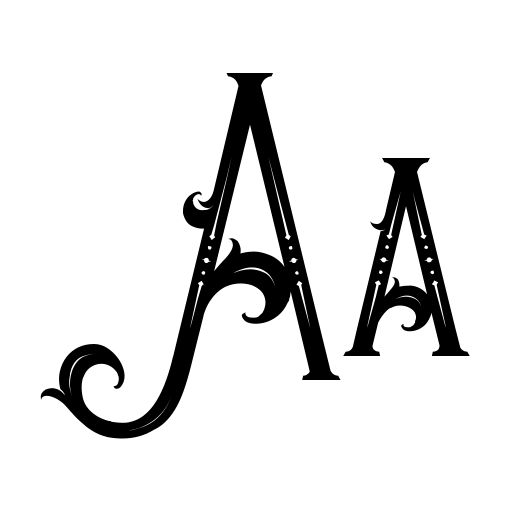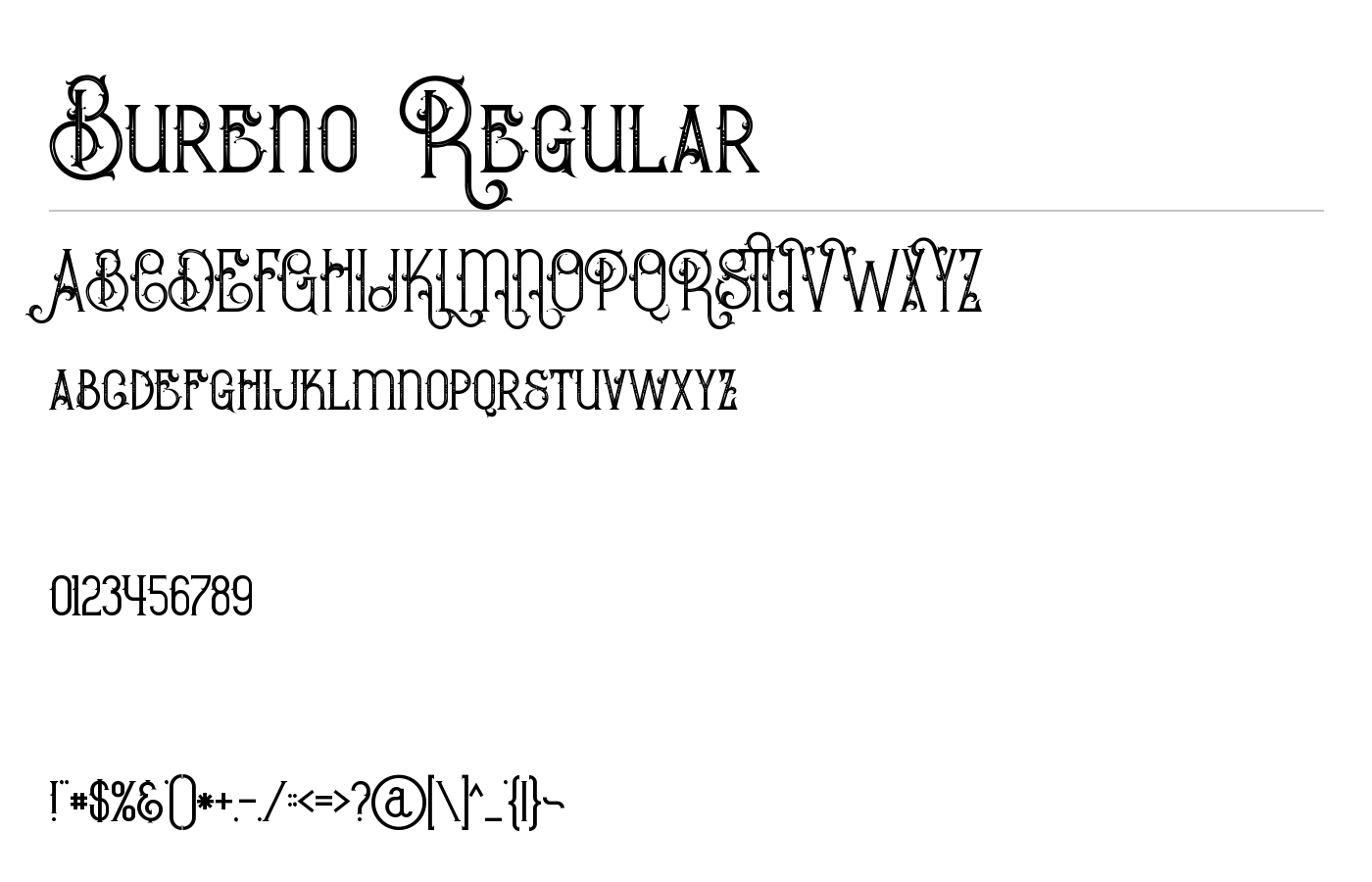
Bureno Regular is a decorative serif font with an intricate, vintage flair, featuring tall, narrow letterforms adorned with ornate curls and delicate stroke endings. Its high contrast and detailed embellishments give it a whimsical yet elegant personality, making it perfect for creating eye-catching headlines, branding with a historical or artistic vibe, and sophisticated poster designs. This font works best where style and uniqueness are prioritized over readability in long texts, bringing a distinct character to creative and luxury projects.
Bureno Regular Font
About Bureno Regular Font